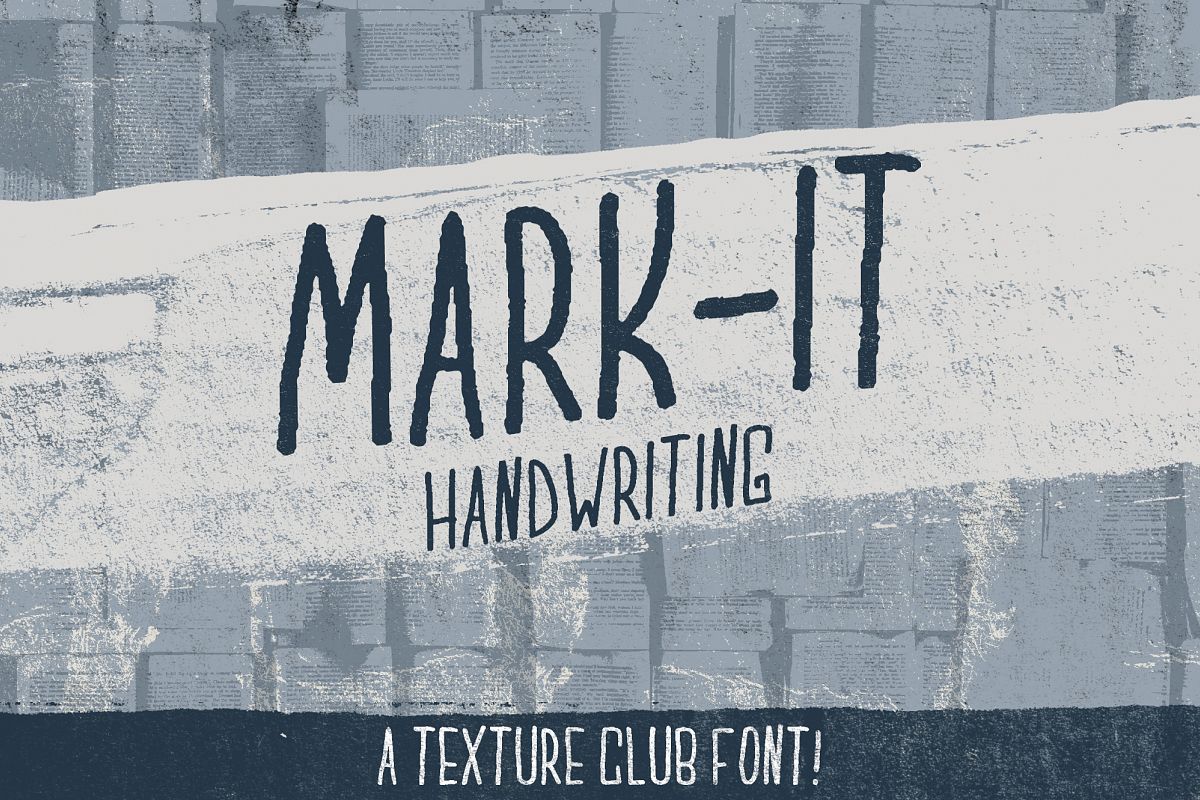
Mark-It handwritten font
Texture Club's first font: Mark-It!
I've been a professional graphic designer (primarily in the music industry) for 15 years now. During this time, I've had tons of people ask me "what font did you use on that design?". 90% of the time, the design they are asking about features something I've handwritten.
Over the next few months, I will be releasing several fonts featuring different hand lettering that I have used over the years.
Mark-It handwritten font